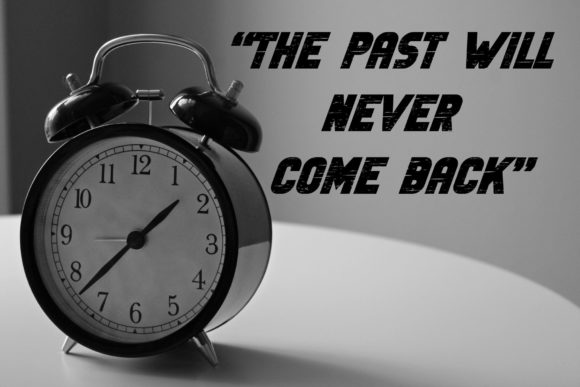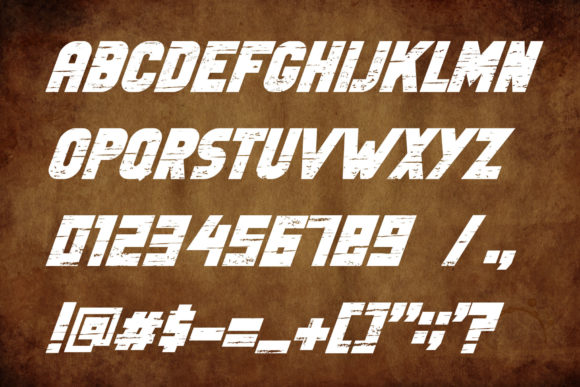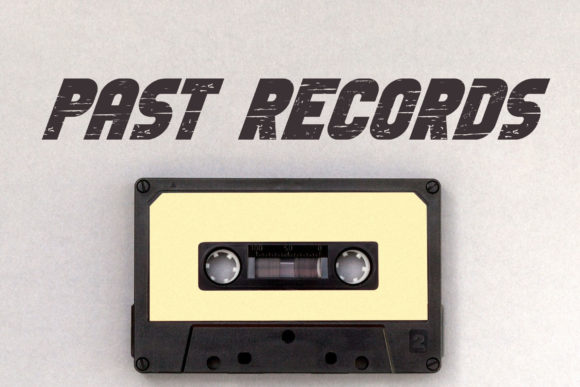
Introduction to Old Car Font
Old Car is a thick lettered and rough textured display font.
This font can be added to designs related to speed, power or both .